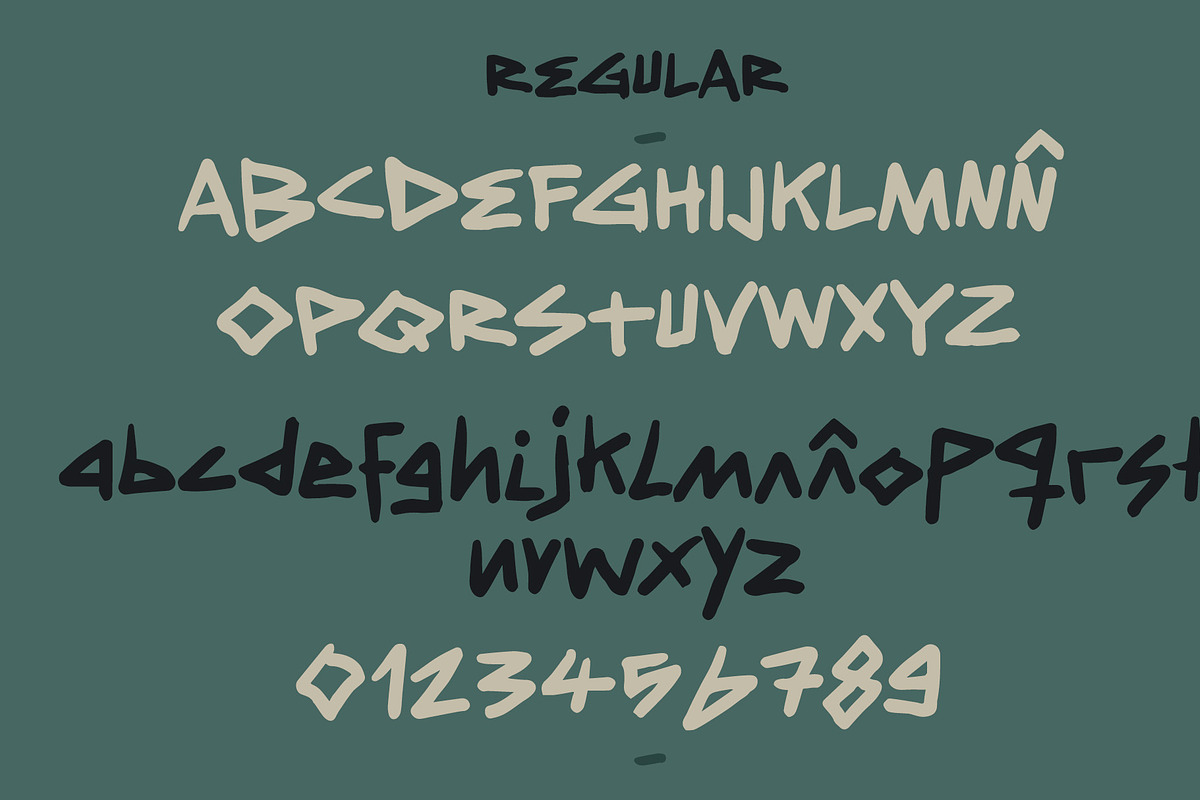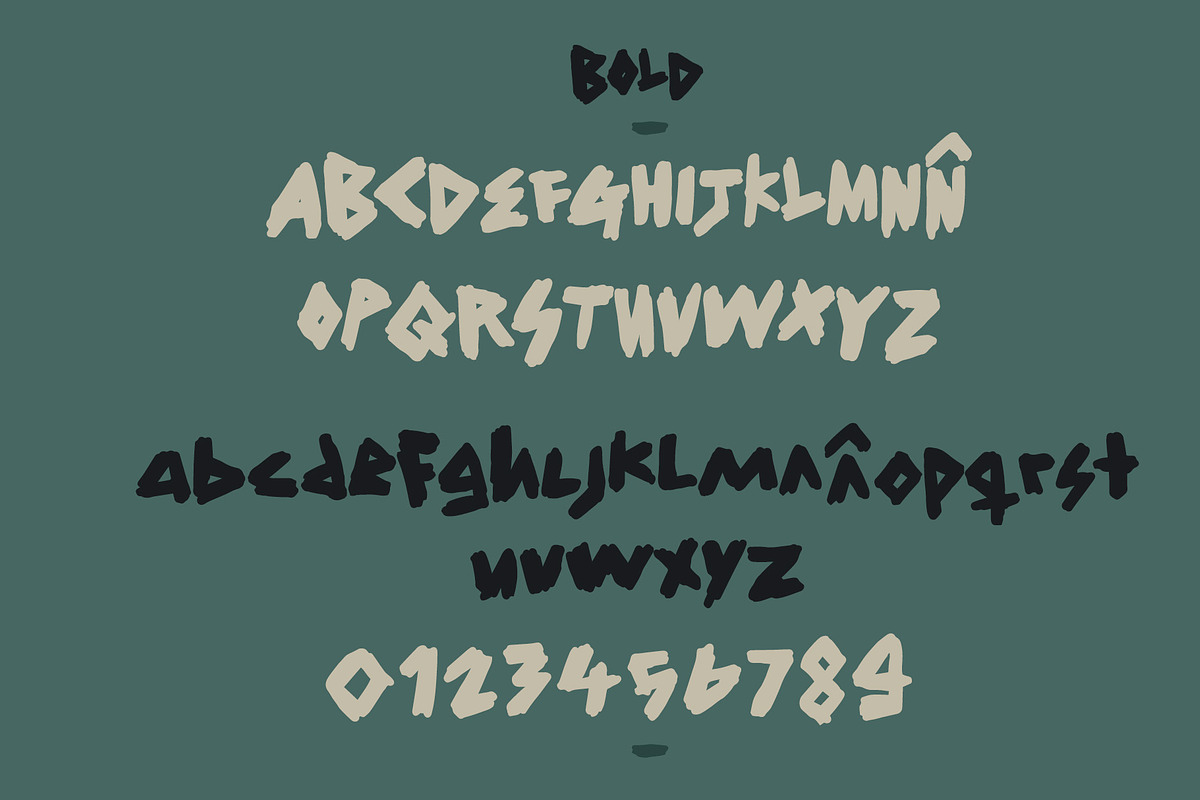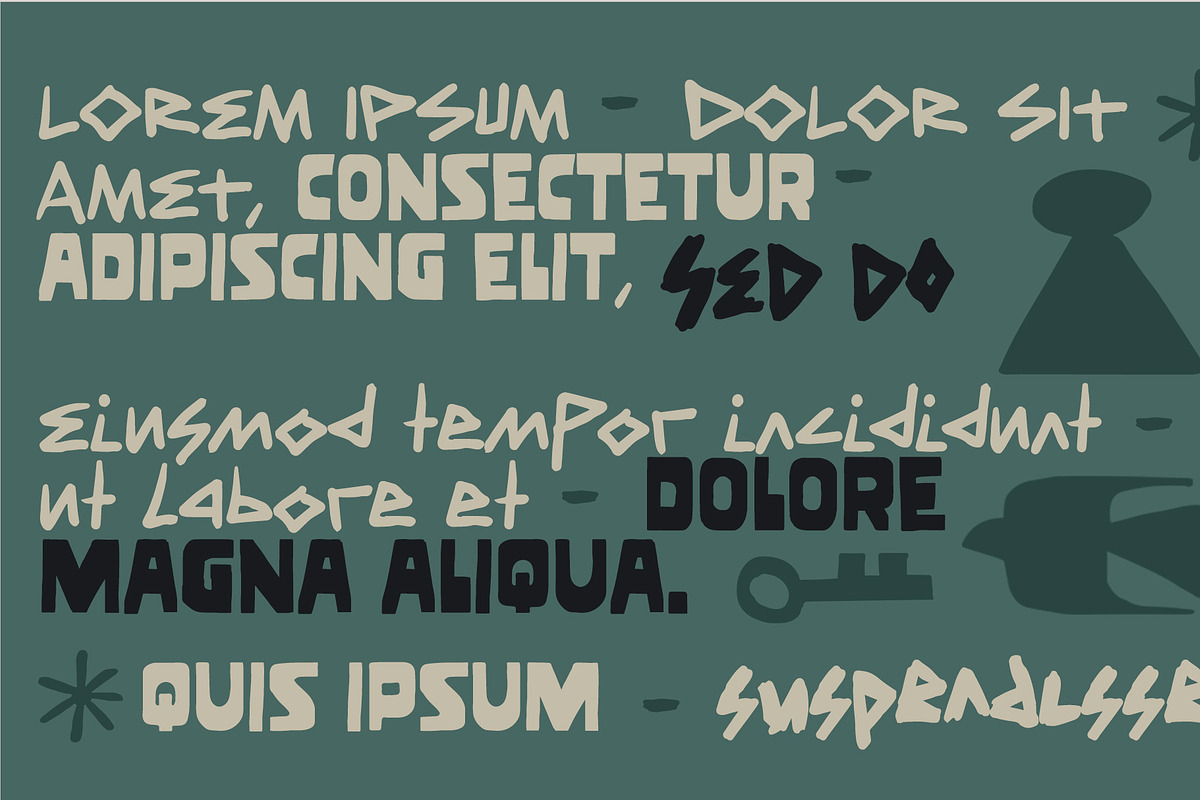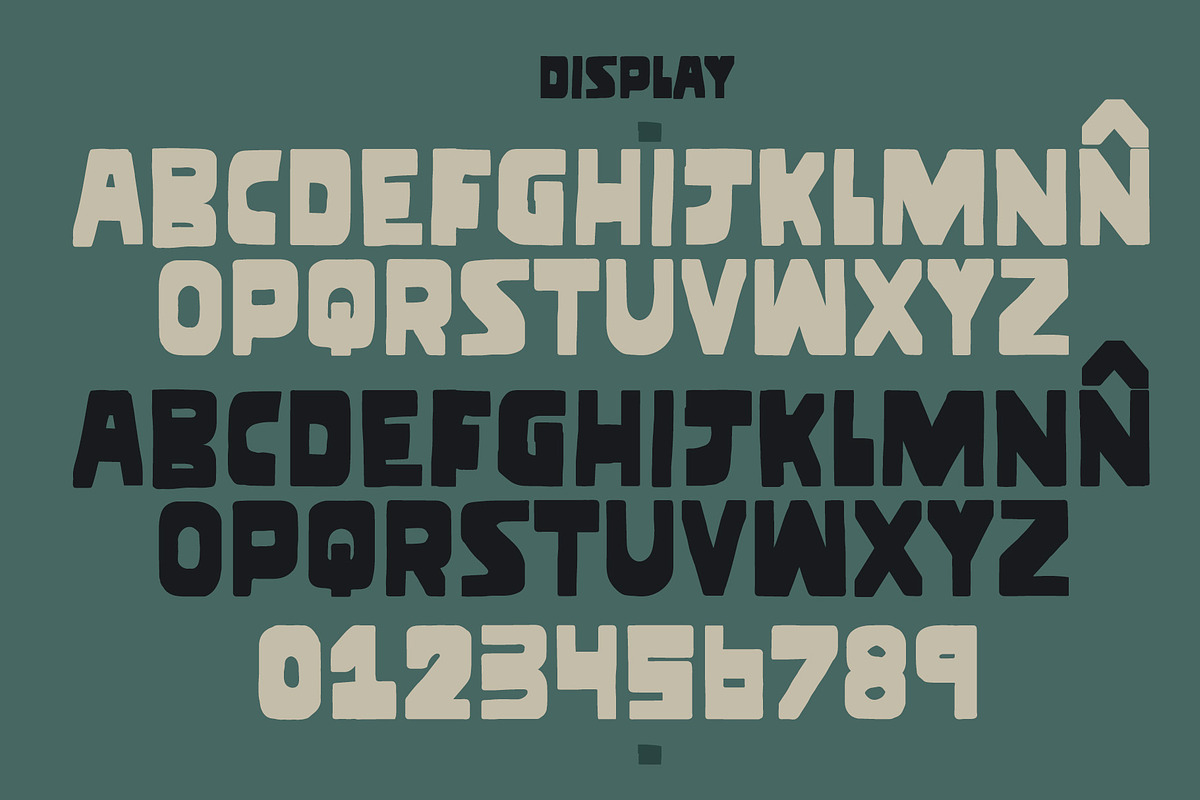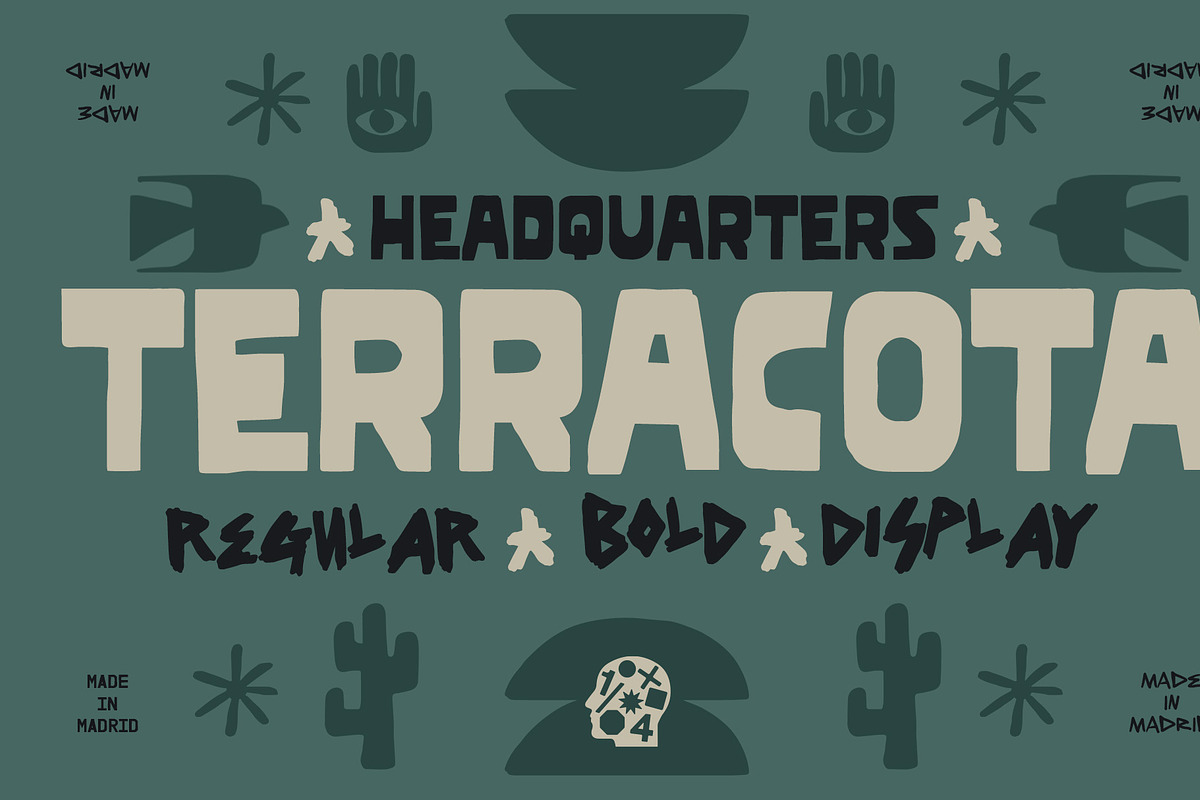
TERRACOTA FONT
Terracota is a versatile and earthy font family, imbued with the warmth and natural essence of handcrafted clay art. This font comes in three distinct weights - Regular, Bold, and Display - each meticulously designed to capture the organic beauty and simplicity of terracotta pottery.
Regular weight boasts a sturdy yet elegant structure, perfect for body text and smaller print.
Bold weight amplifies your message with its robust and impactful character, ideal for headings and emphasis.
Display, with its unique flair and decorative elements, is tailor-made for larger, more expressive applications such as posters, banners, and branding.
Together, these weights offer a cohesive and adaptable typography toolkit, making Terracota an excellent choice for designers seeking a font with natural charm and a handcrafted feel.